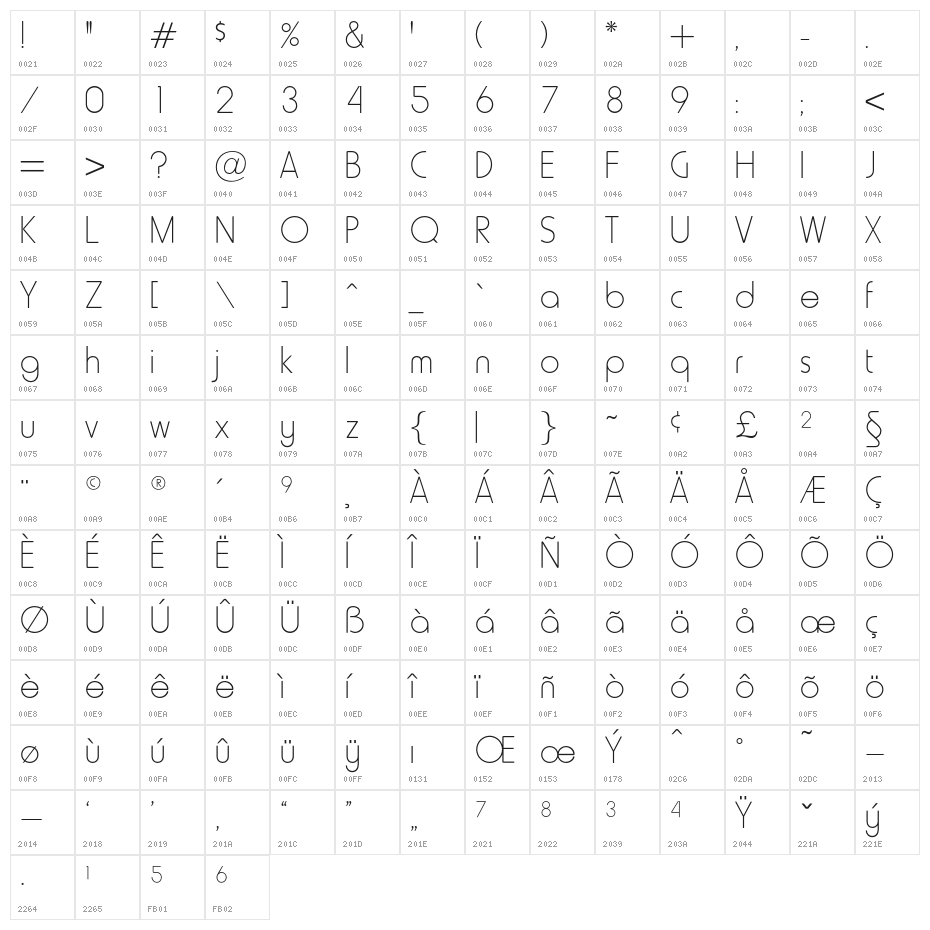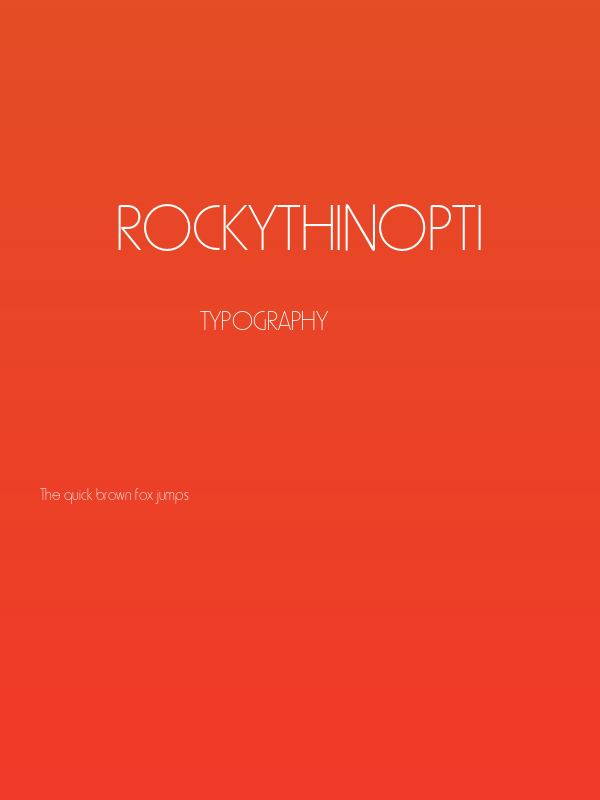
RockyThinOpti Font
RockyThinOpti Description
This font features a sleek and modern design with thin, elegant lines that create a sense of sophistication and minimalism. The characters are well-proportioned, with a consistent stroke width that enhances readability while maintaining a stylish appearance. The uppercase letters are tall and commanding, while the lowercase letters are rounded and approachable, providing a balanced look. The numerals are clear and distinct, making them suitable for various applications. Special characters are included, offering versatility for different design needs. Overall, this font exudes a contemporary and refined aesthetic, making it ideal for projects that require a clean and professional look.
Proposed ProjectsIdeal for branding, editorial design, websites, and modern advertising campaigns.